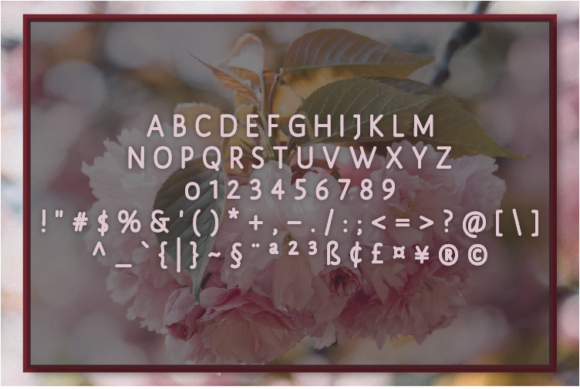
Introducing Chariel Font: The Perfect Choice for Vintage-Inspired Designs
In the world of typography, fonts play a crucial role in conveying the tone and aesthetic of a design. For designers and crafters looking to create vintage-inspired logos, headers, and posters, Chariel Font is an excellent choice. This clean and simple sans serif font features smooth edges that simulate vintage printing, making it perfect for a wide range of design applications.
What is Chariel Font?
Chariel Font is a modern sans serif font designed to mimic the look and feel of vintage printing. Its clean lines, simple shapes, and smooth edges give it a unique and distinctive appearance that is both elegant and nostalgic. The font’s design is carefully crafted to evoke a sense of classic style, making it ideal for designers who want to create vintage-inspired designs that are both timeless and sophisticated.
Key Features of Chariel Font
So, what makes Chariel Font so special? Here are some of its key features:
- Clean and Simple Design: Chariel Font features a clean and simple design that is easy to read and understand. Its sans serif design makes it perfect for use in a wide range of design applications, from logos and headers to posters and signage.
- Smooth Edges: The font’s smooth edges are designed to simulate vintage printing, giving it a unique and distinctive appearance that is both elegant and nostalgic.
- Vintage-Inspired: Chariel Font is perfect for designers who want to create vintage-inspired designs. Its classic style and nostalgic feel make it ideal for use in logos, headers, and posters that require a touch of vintage charm.
- Highly Versatile: Chariel Font is highly versatile and can be used in a wide range of design applications, from print to digital media.
Uses of Chariel Font
Chariel Font is perfect for a wide range of design applications, including:
- Vintage Logo Designs: Chariel Font is ideal for creating vintage-inspired logos that require a touch of classic style and sophistication.
- Headers and Posters: The font’s clean lines and simple shapes make it perfect for use in headers and posters that require a clear and easy-to-read design.
- Signage and Advertising: Chariel Font can be used in signage and advertising applications, such as billboards, flyers, and brochures.
- Digital Media: The font can also be used in digital media, such as website headers, social media graphics, and email marketing campaigns.
Why Choose Chariel Font?
So, why choose Chariel Font for your design projects? Here are some reasons:
- Unique and Distinctive Design: Chariel Font features a unique and distinctive design that sets it apart from other fonts.
- Elegant and Nostalgic: The font’s classic style and nostalgic feel make it perfect for designers who want to create vintage-inspired designs.
- Highly Versatile: Chariel Font can be used in a wide range of design applications, from print to digital media.
- Easy to Read and Understand: The font’s clean lines and simple shapes make it easy to read and understand, even at small sizes.
In conclusion, Chariel Font is an excellent choice for designers and crafters looking to create vintage-inspired designs. Its clean and simple sans serif design, smooth edges, and classic style make it perfect for use in a wide range of design applications, from logos and headers to posters and signage. With its unique and distinctive design, elegant and nostalgic feel, and high versatility, Chariel Font is a font that is sure to impress.